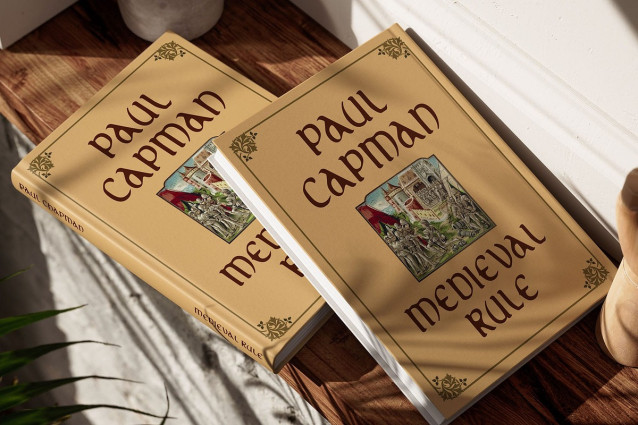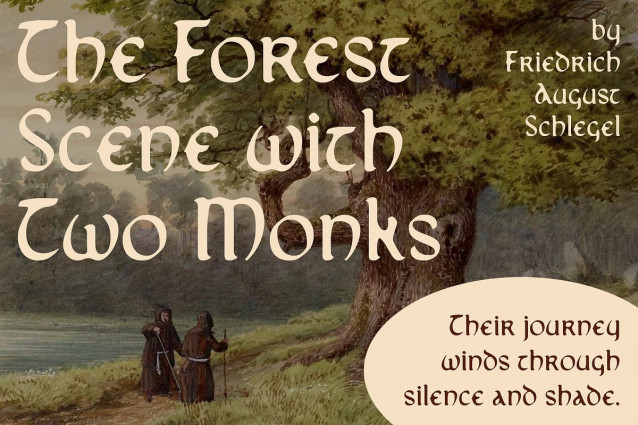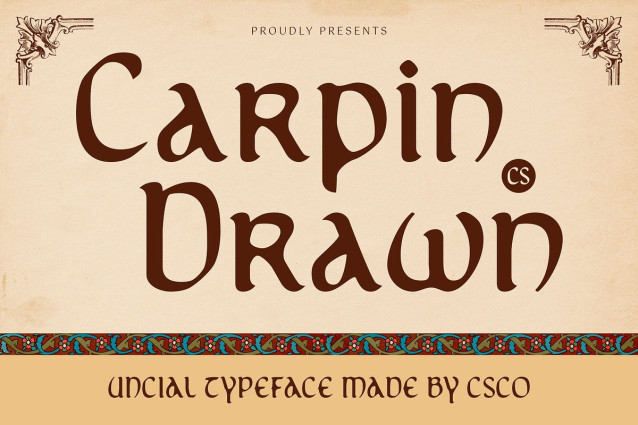
CS Carpin Drawn Font
CS Carpin Drawn Font – This is a display font inspired by the uncial style, featuring rounded, flowing letterforms reminiscent of classical medieval manuscripts. Enhanced with a drawn effect, it introduces a rough, sketch-like texture that adds a raw, organic quality—giving it the charm of hand-rendered script while maintaining historical depth.
Historical Elegance with a Rough, Artistic Edge The uncial structure evokes tradition and antiquity, often associated with epic tales, sacred texts, and mythical legends. Layering it with a hand-drawn texture breathes life and modern artistic energy into the font, creating a visually textured, imperfect beauty.
Perfect for Fantasy and Myth-Inspired Projects With its historical roots and handcrafted flair, this magical font is an excellent choice for fantasy-themed visuals, book covers, mystical branding, or mythology-based storytelling. Whether you’re evoking ancient scrolls or building a magical universe, this font supports a narrative that is emotive, rich, and imaginative.
Versatile for Creative and Expressive Use This historical font balances tradition and artistry, making it suitable not only for thematic design but also for experimental posters, editorial layouts, or creative brand identities that aim to stand out with depth and authenticity.